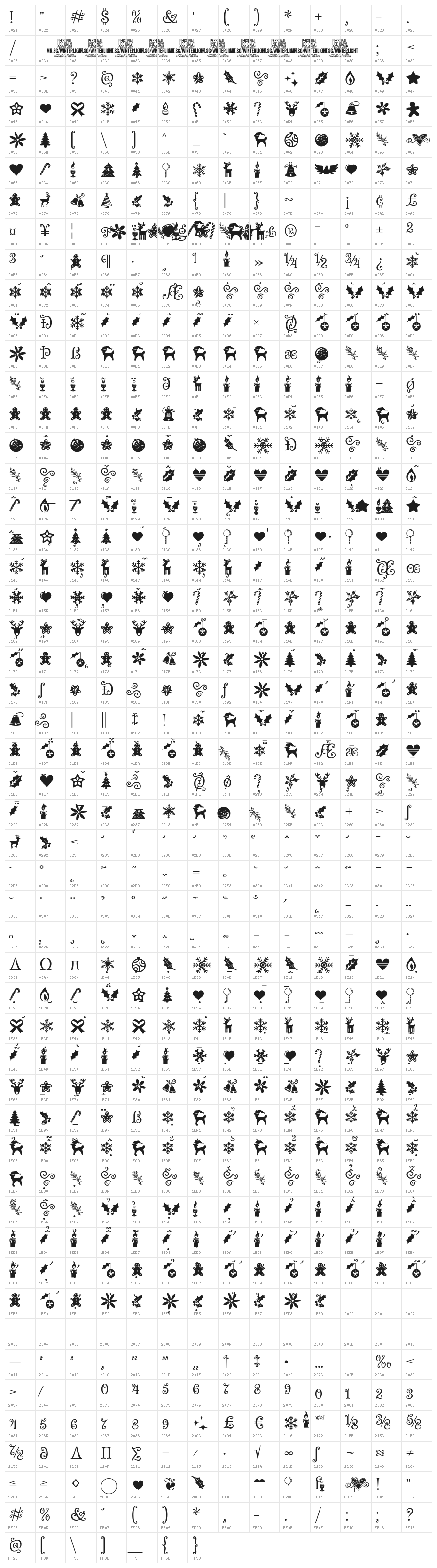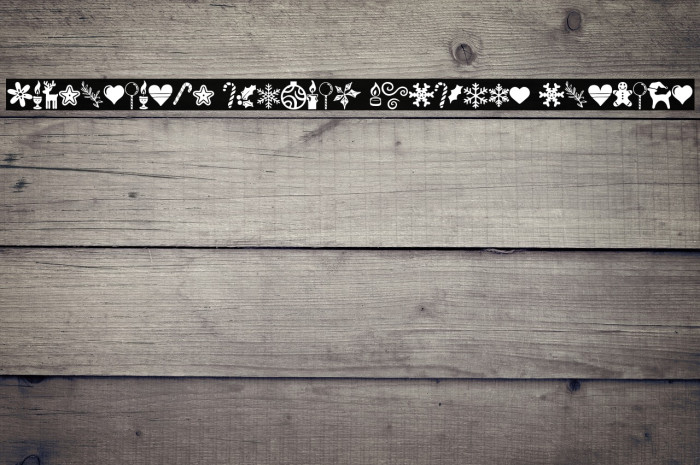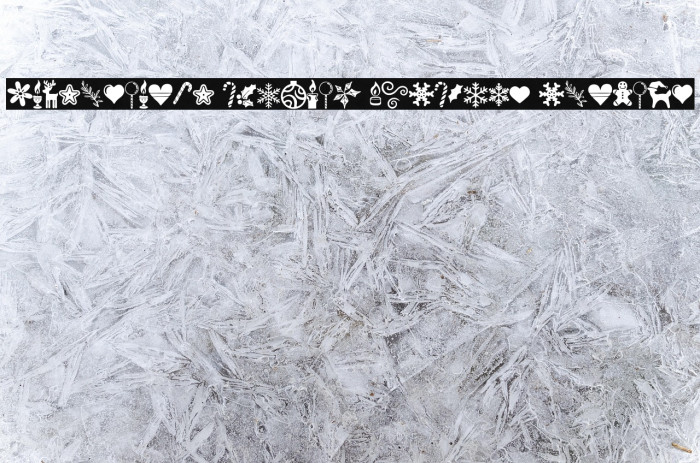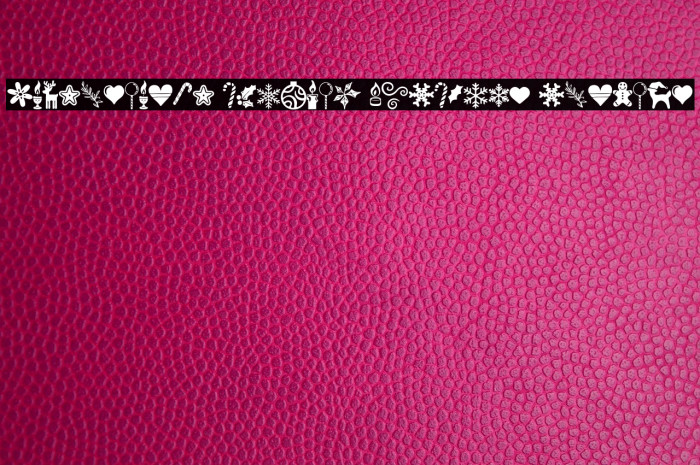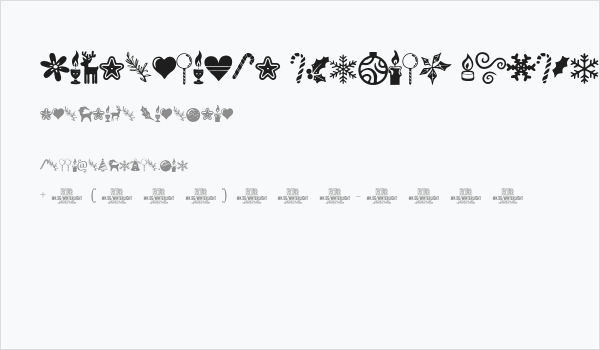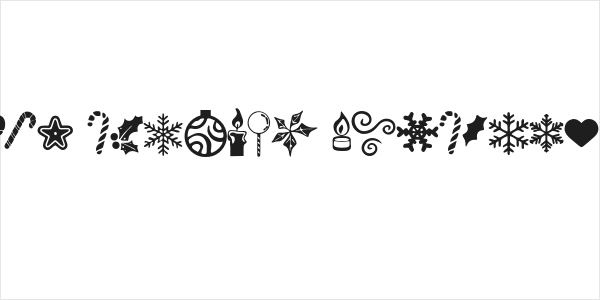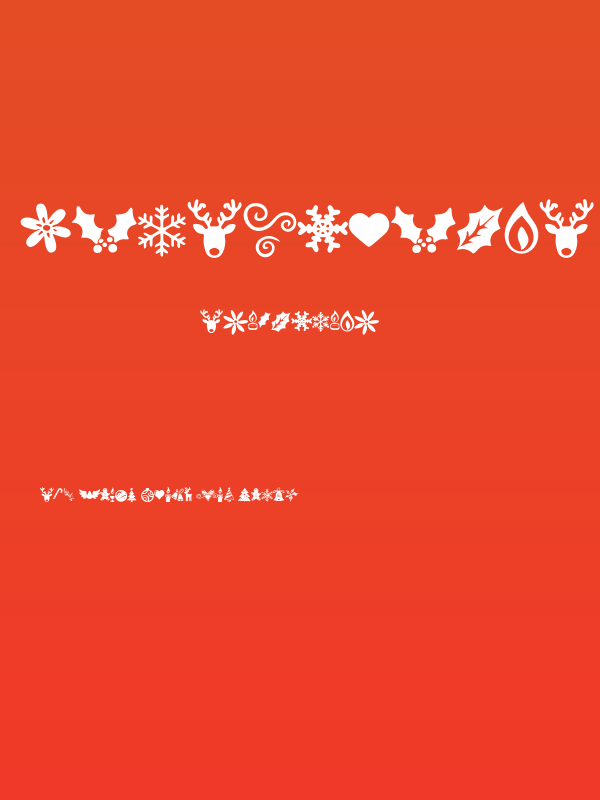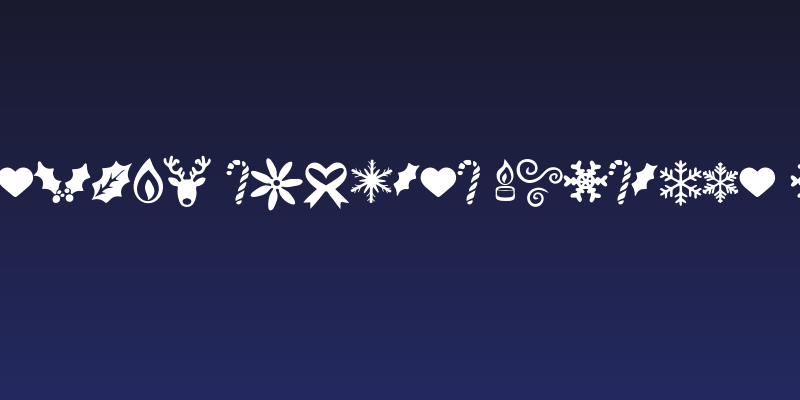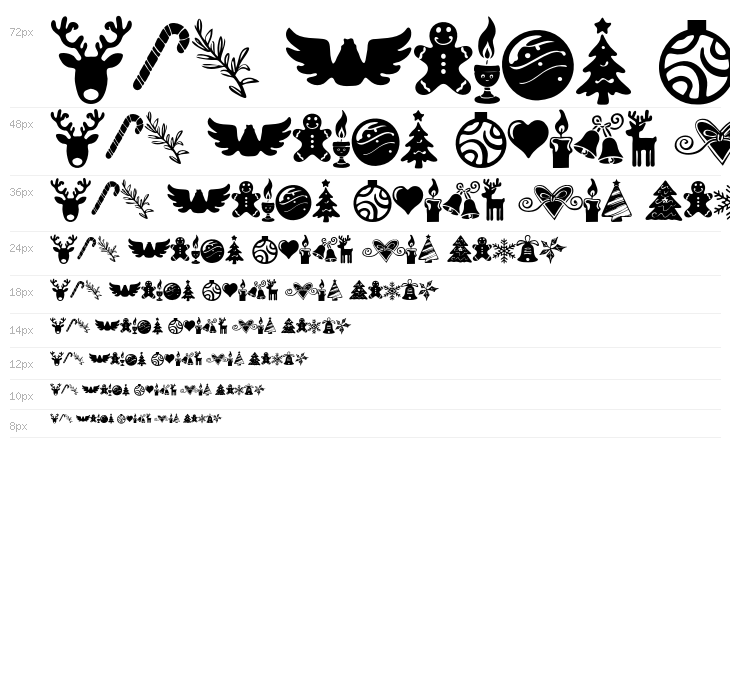
Winterlight Symbols PERSONAL Regular Font
Winterlight Symbols PERSONAL Regular Description
This collection features a delightful array of winter-themed symbols, perfect for adding a festive touch to any project. The symbols include snowflakes, holly leaves, stars, hearts, and various holiday icons such as reindeer, bells, and Christmas trees. Each symbol is crafted with a playful and decorative style, making them ideal for holiday cards, invitations, and seasonal decorations. The bold, black silhouettes ensure that these symbols stand out, while their whimsical design adds a touch of charm and joy. The set also includes a variety of punctuation marks and special characters, maintaining a cohesive and festive theme throughout.
| Use Case | Logos, Headlines, Decorative elements |
| Proposed Projects | Ideal for holiday cards, festive invitations, seasonal decorations, and winter-themed crafts. |